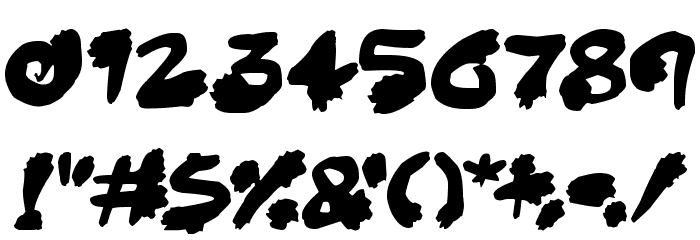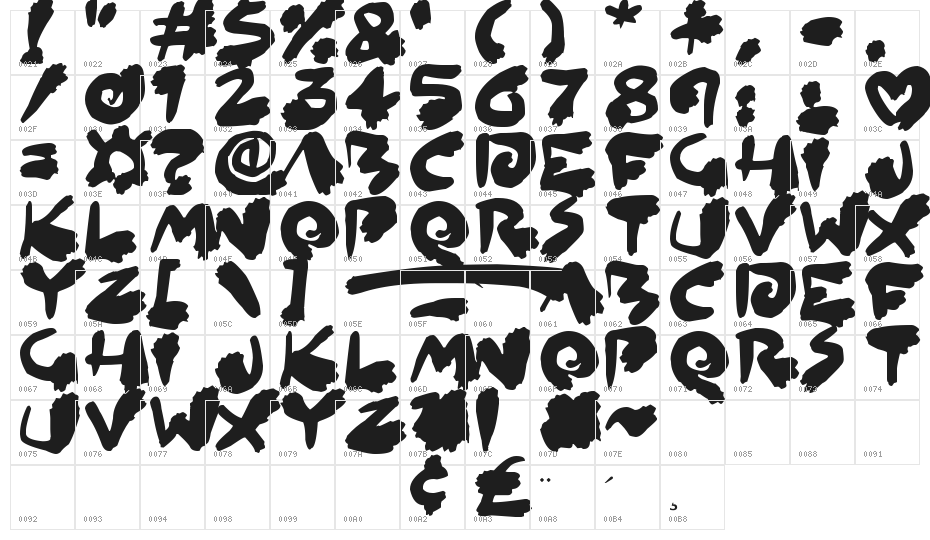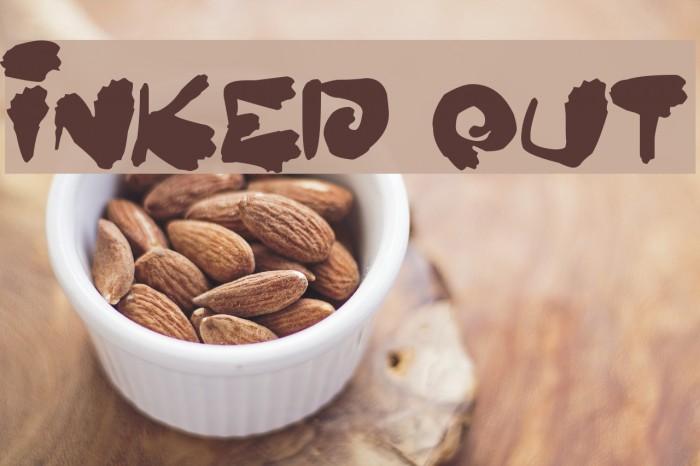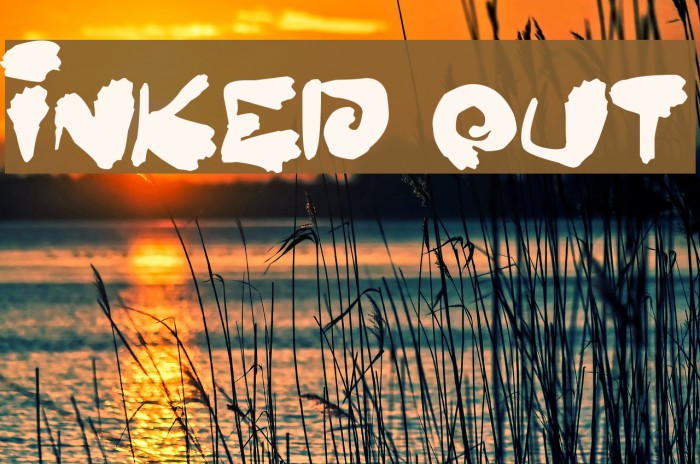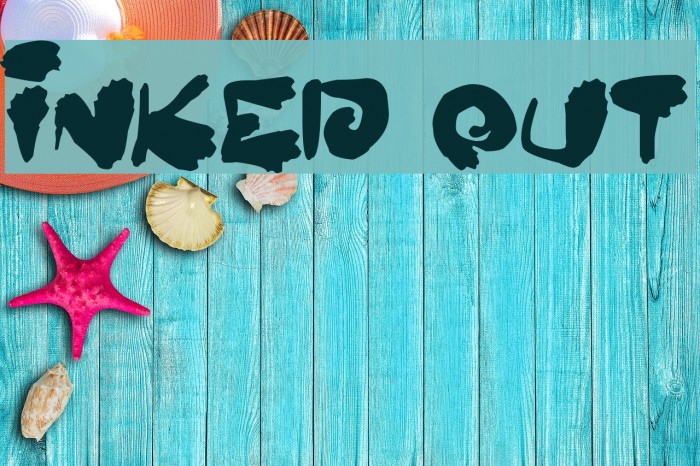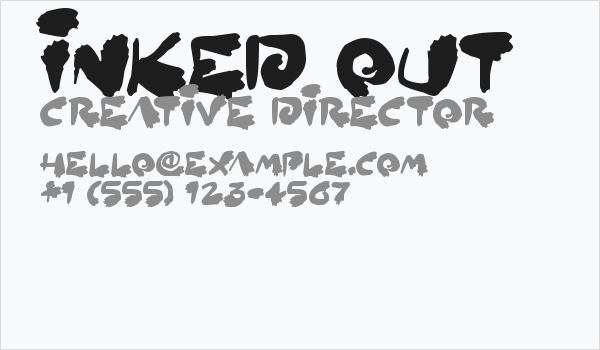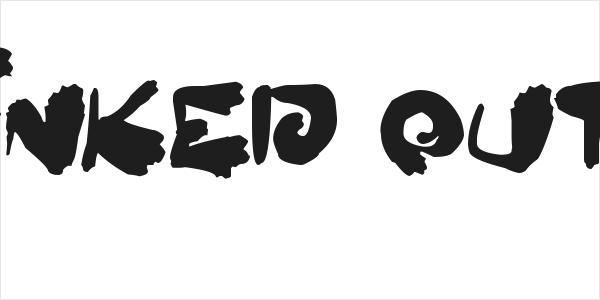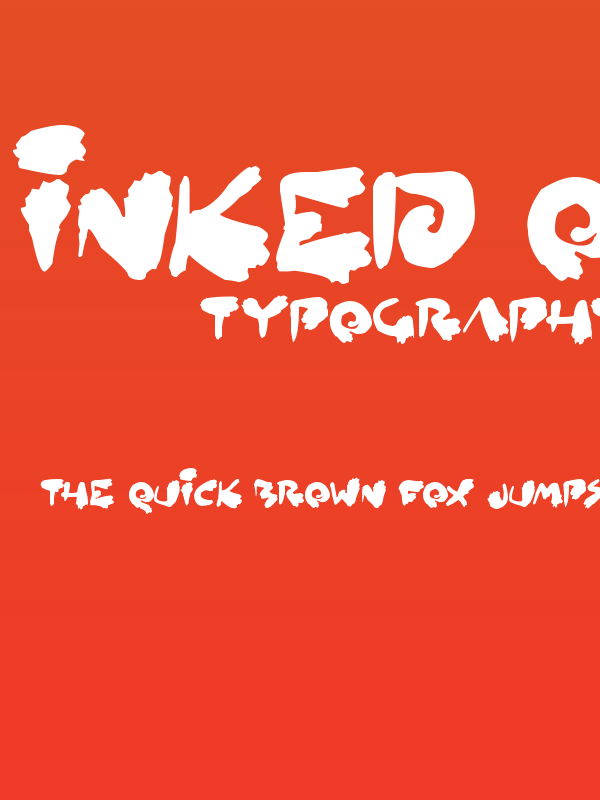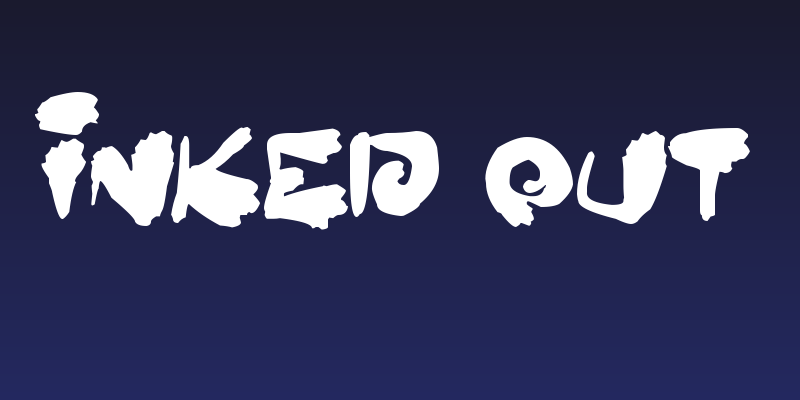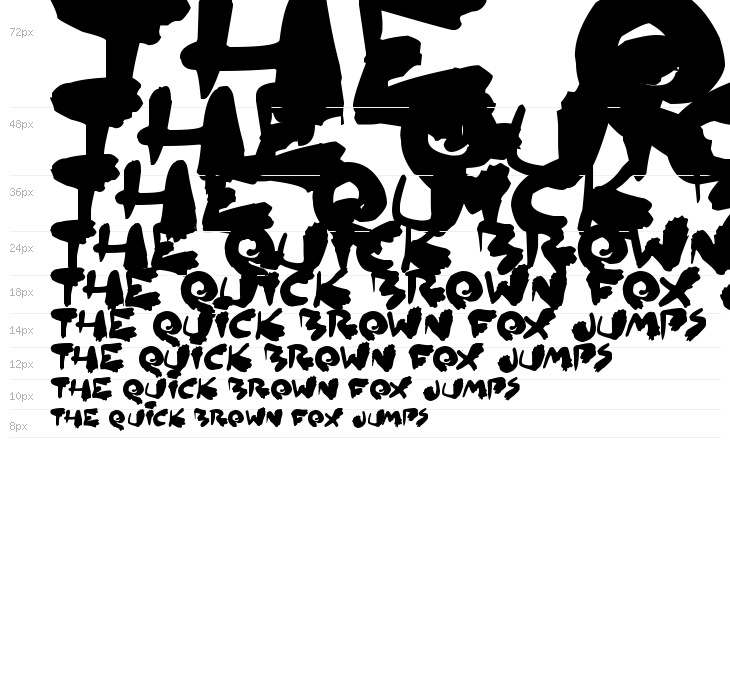
Inked Out Font
Inked Out Description
This font features a bold and expressive style, reminiscent of brush strokes or ink splatters. Each character is uniquely crafted with irregular edges, giving it a dynamic and energetic appearance. The uppercase and lowercase letters maintain a consistent weight, emphasizing the boldness throughout. Numbers and special characters follow the same artistic theme, ensuring a cohesive look across all text. The font's design is perfect for projects that require a strong visual impact, such as posters, album covers, or artistic branding. Its distinctive style makes it stand out, capturing attention with its raw and organic feel.
| Proposed Projects | Ideal for posters, album covers, artistic branding, and any project needing a strong visual impact. |